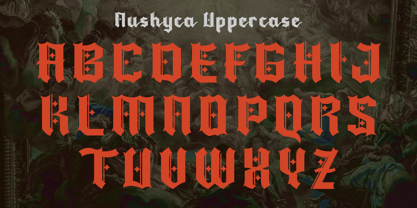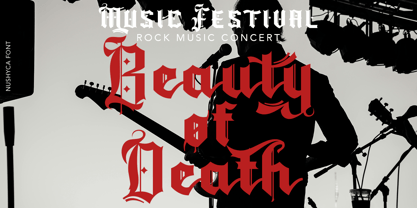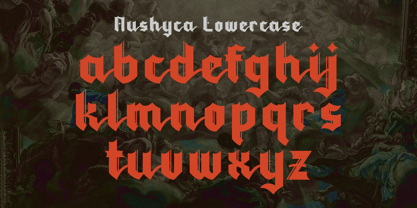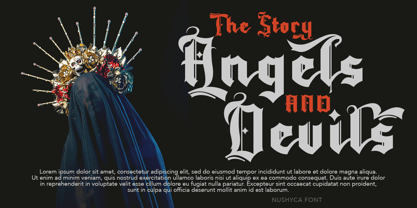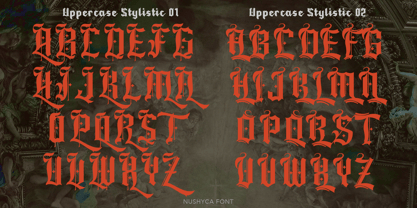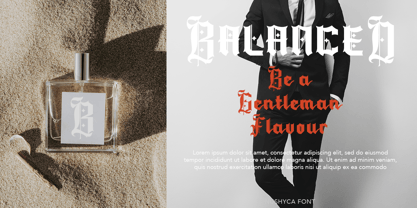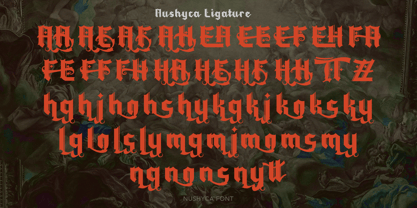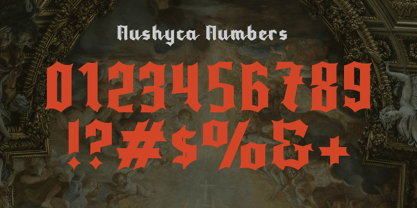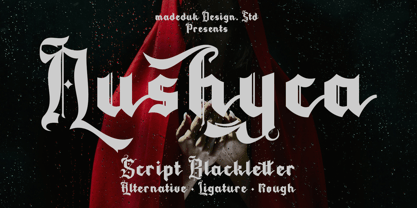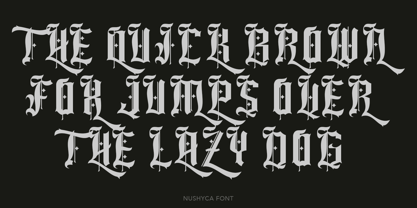
Nushyca
by madeDeduk
The Nushyca Font Family was designed by madededuk and published by madeDeduk. Nushyca contains 2 styles and family package options. More about this family
Nushyca is a new Blackletter script with classy, elegant and vintage feel. To create the beautiful combination, just mix the alternative and ligature glyphs. You can also combine this font with other types of fonts according to your needs. This font is perfect for branding, logo design, cover design, books, magazines, apparel designs, headlines, etc.